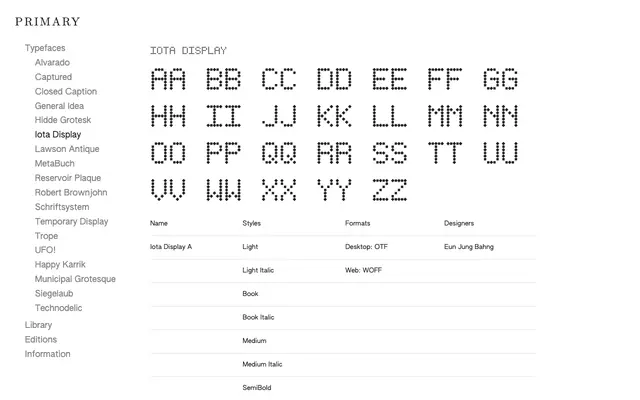
Iota Display
Primary Foundry · Eun Jung Bahng
A modular display typeface by Eun Jung Bahng, built from plus and multiplication signs to represent positive connections within groups and networks.
Each letterform is constructed from a system of plus and multiplication signs, translating the idea of connective relationships into a formal typographic structure. The family spans two subfamilies: Iota Display A includes italics across six weights from Light to Black, while Iota Display B offers the same six weights in upright cuts only, giving a total of 18 styles and 1,566 glyphs. Released under the Open Font Licence, it is free to use, modify and redistribute.
Constructed from plus and multiplication signs arranged into letterforms, making it a modular display typeface with a conceptual, geometric basis rather than a conventional typographic construction.